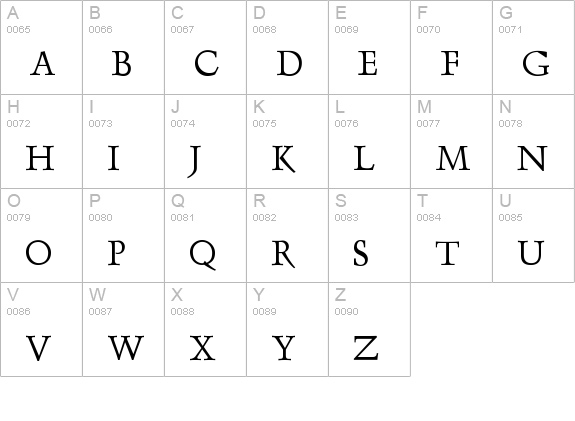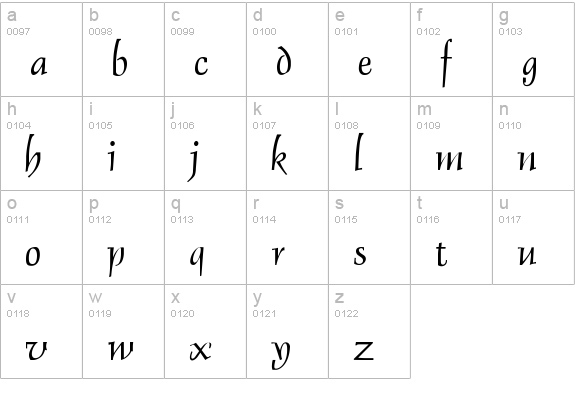
DelphinOne Font Details
DelphinOne is a beautifully crafted font that exudes elegance and sophistication. Its sleek lines and modern design make it perfect for a wide range of projects, from branding to editorial design. With its unique blend of classic and contemporary elements, DelphinOne is sure to make your text stand out. The best part? DelphinOne is available for free download at FontsMarket.com. This means you can add this stunning font to your collection without breaking the bank. Whether you're a seasoned designer looking to refresh your toolkit or a newcomer eager to experiment with typography, DelphinOne is the perfect choice. Don't miss out on the opportunity to elevate your designs with this versatile and eye-catching font. Download DelphinOne for free today and unlock a world of creative possibilities.